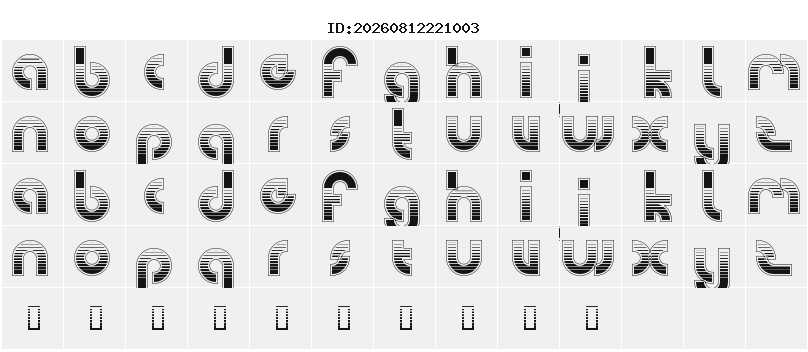
• Font Name: Untitled
• Font ID: 1.000;pyrs;RetroGamer
• Full Font Name: RetroGamer
• PostScript Name: RetroGamer
• Designer: =^_^=
Untitled.otf is a modern, elegant sans-serif font designed for ultimate readability and visual harmony. Perfect for branding, headlines, web design, and print materials.